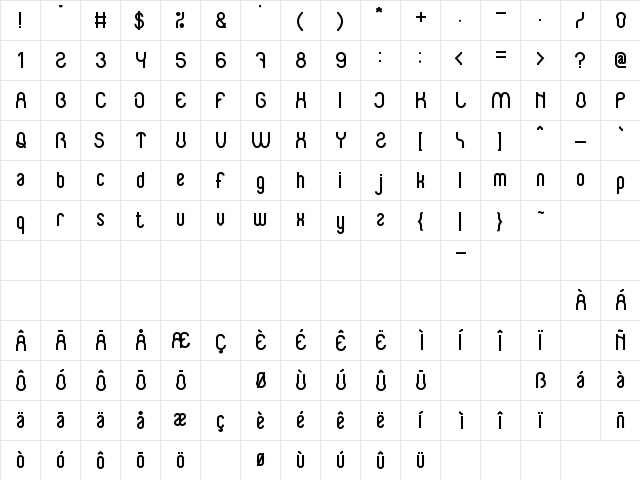
Baby Superhero Bold
Design Context for Baby Superhero Typeface
Baby Superhero offers clean, dependable letterforms without strong stylistic allegiance, making it a practical choice for designers who need flexibility. Its bold stroke weight gives it real presence on the page.